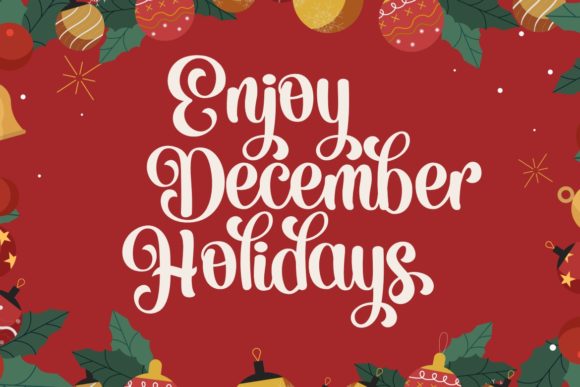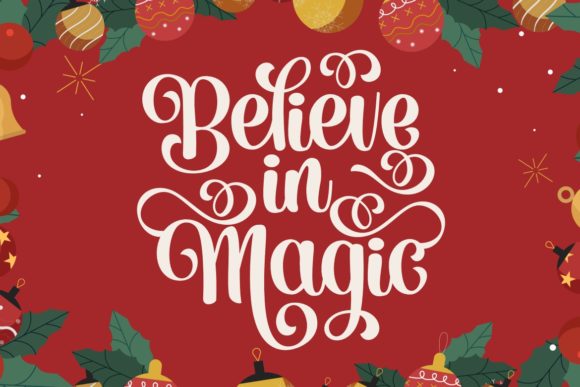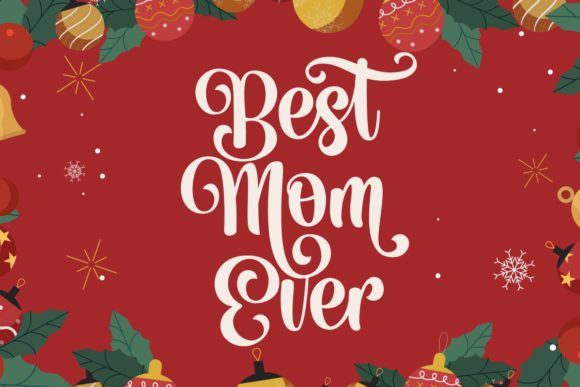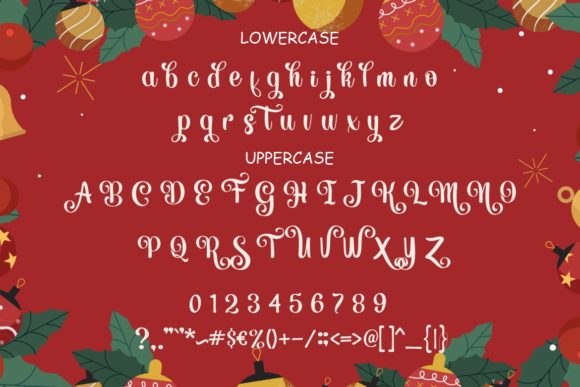
Meristmas is a beautiful and sweet handwritten font. It is fresh, clean, and elegant. This font will look amazing in a great amount of projects, both formal and informal.
Meristmas Font